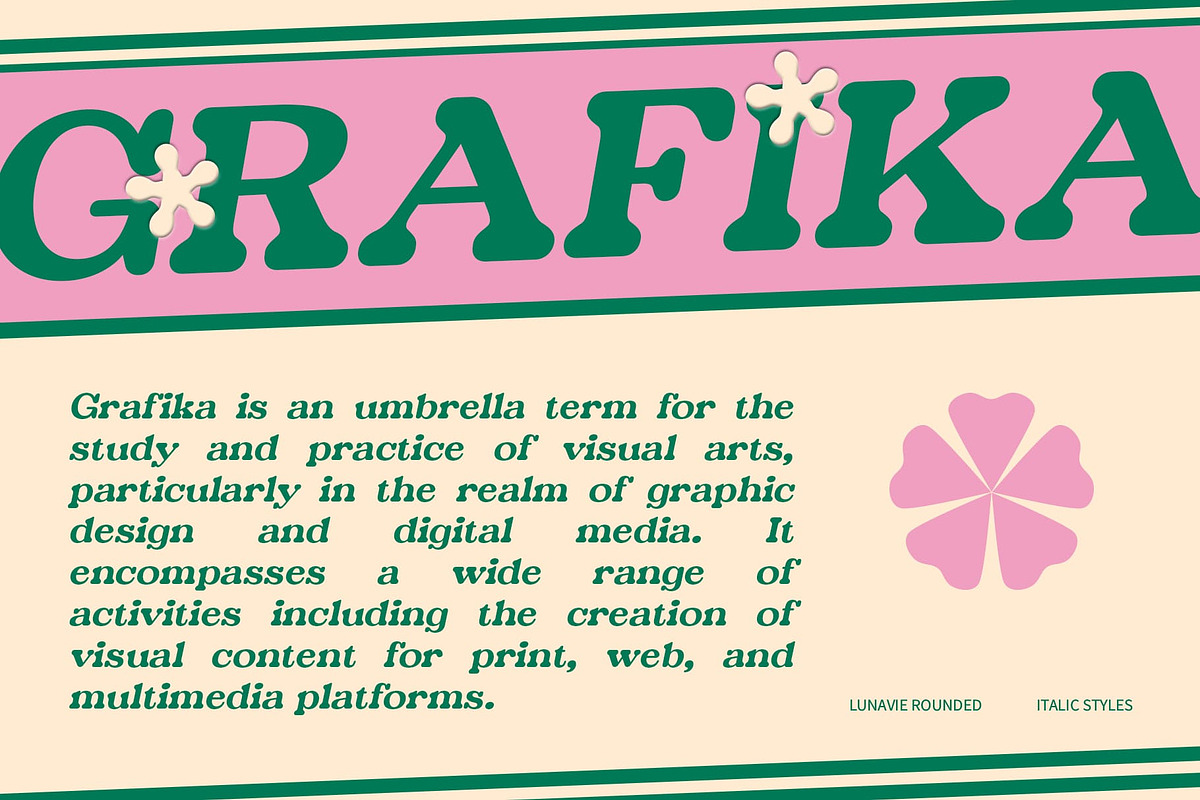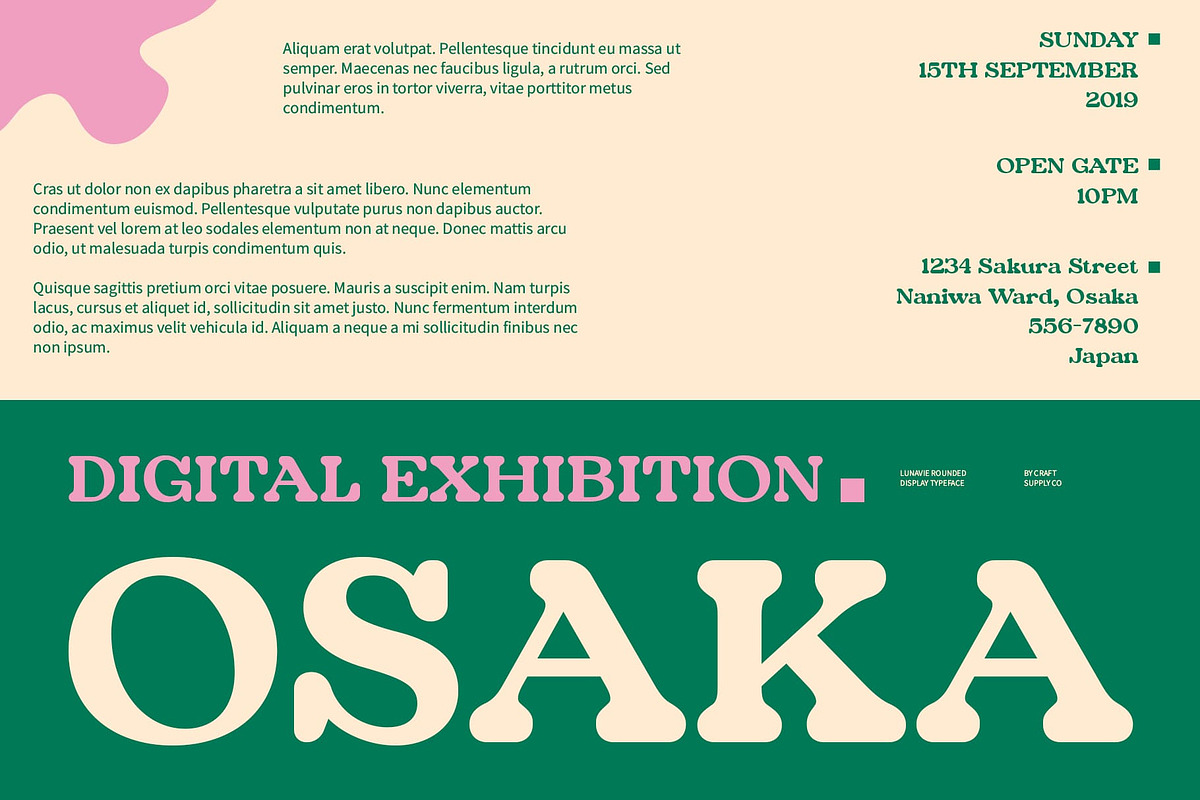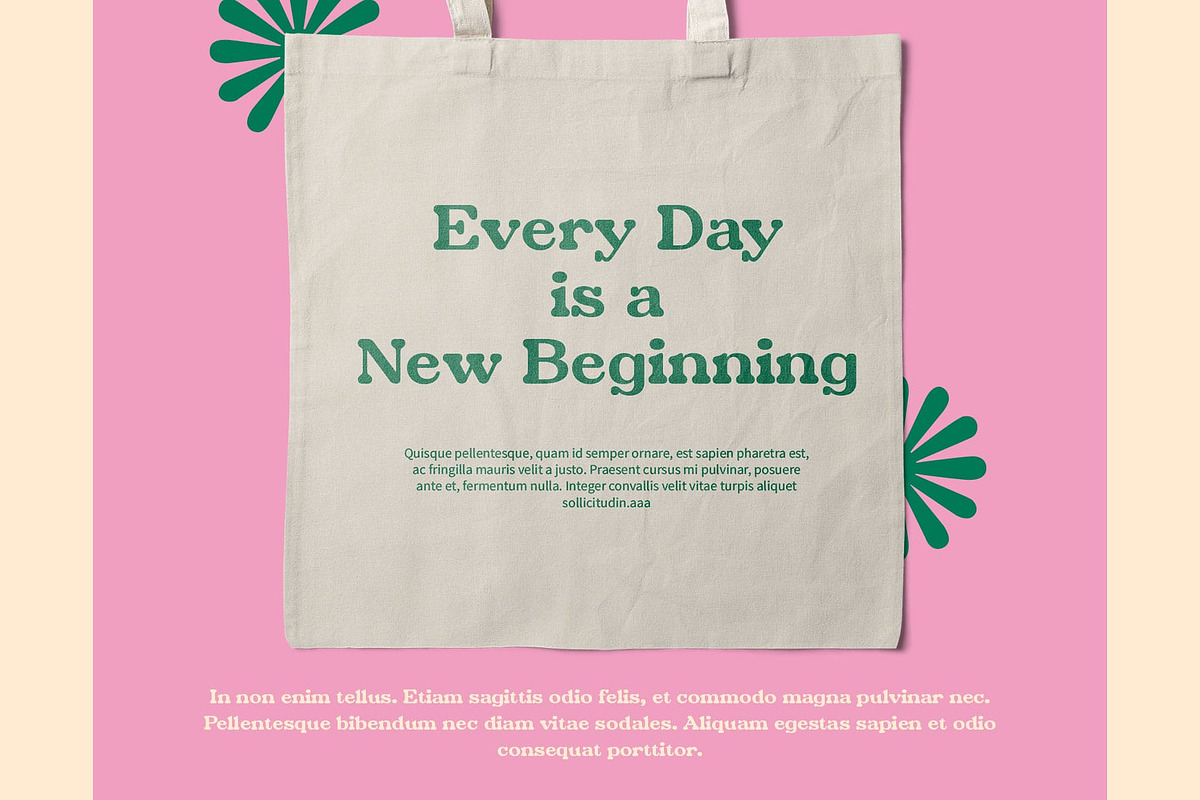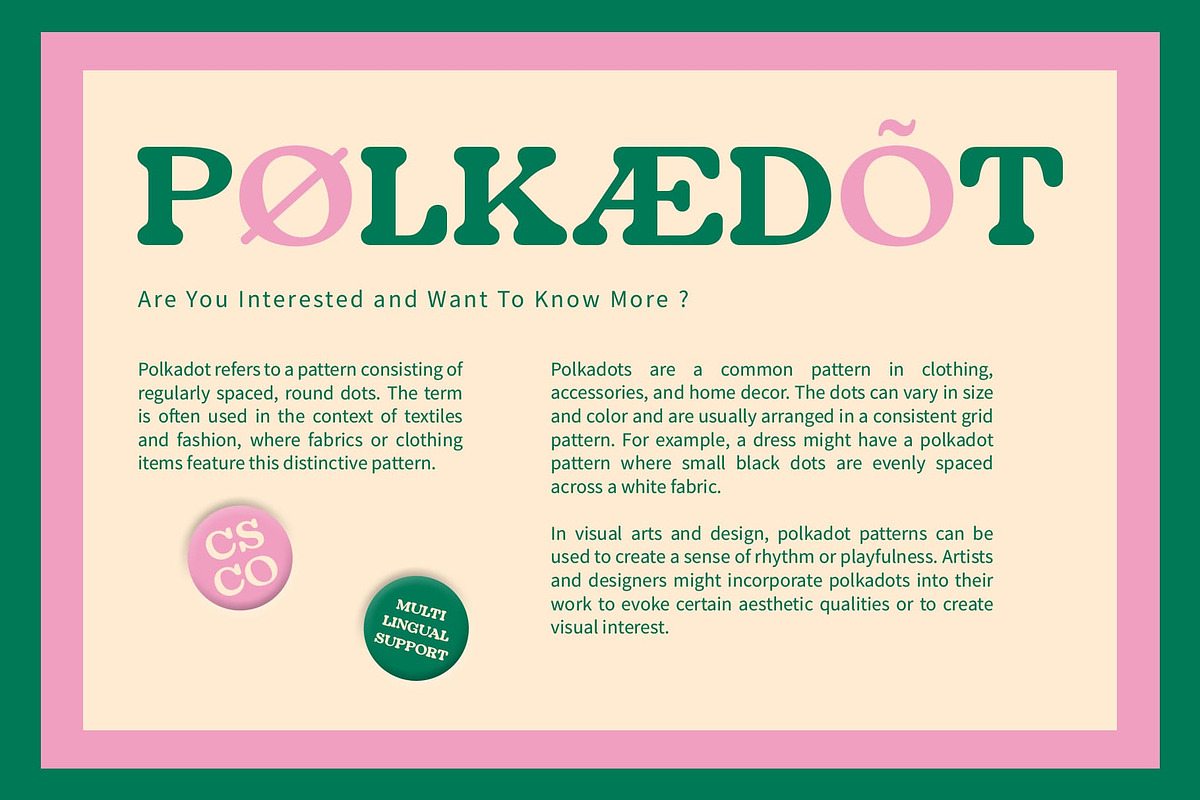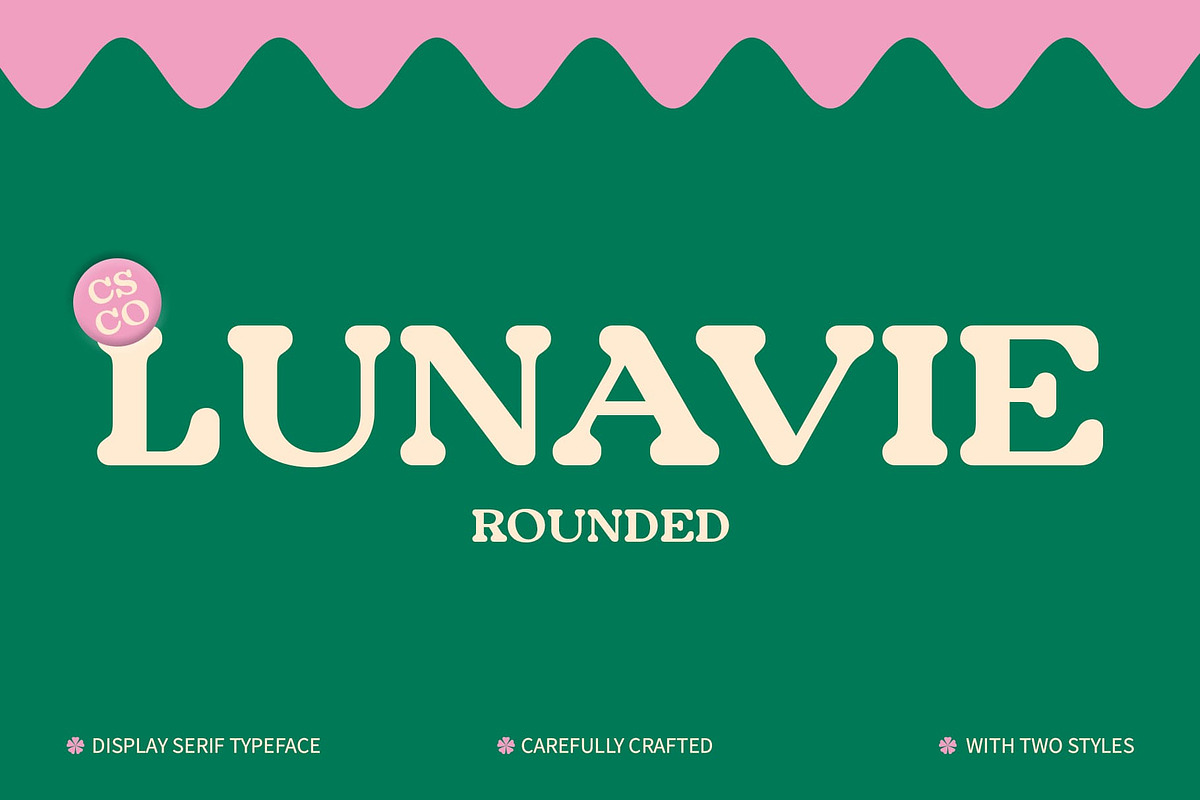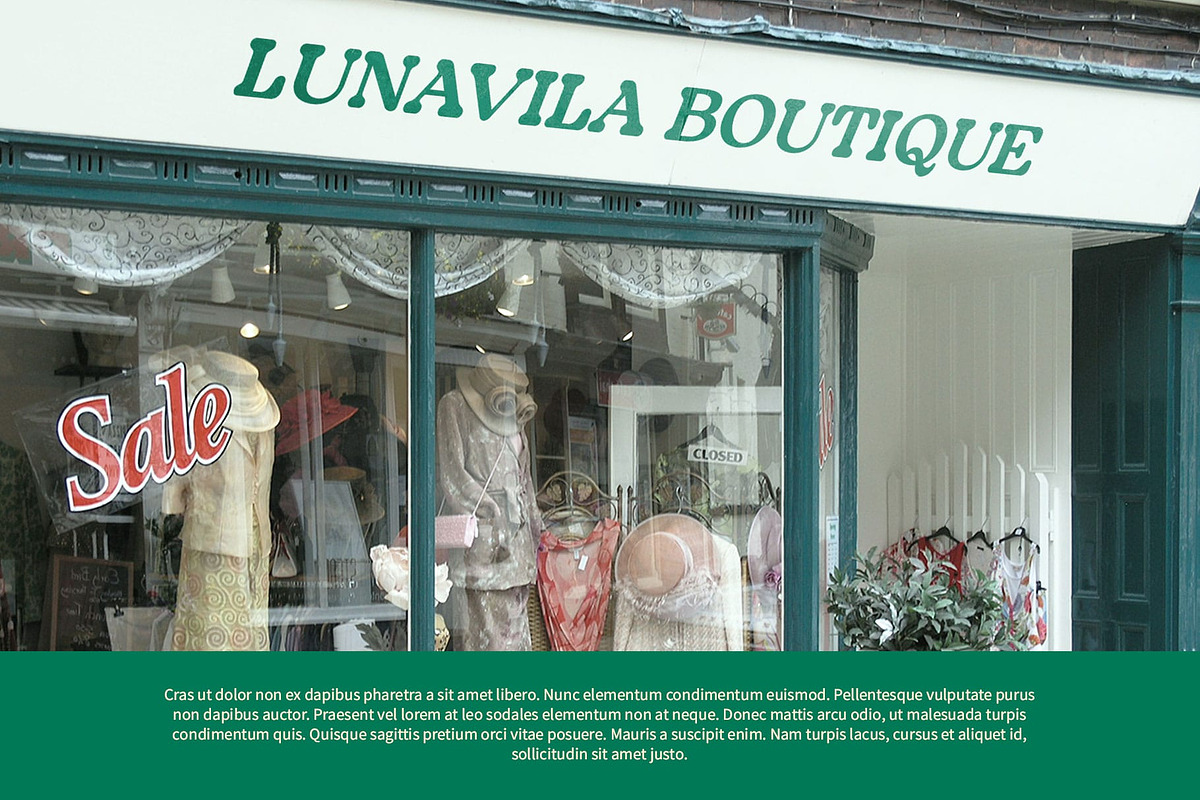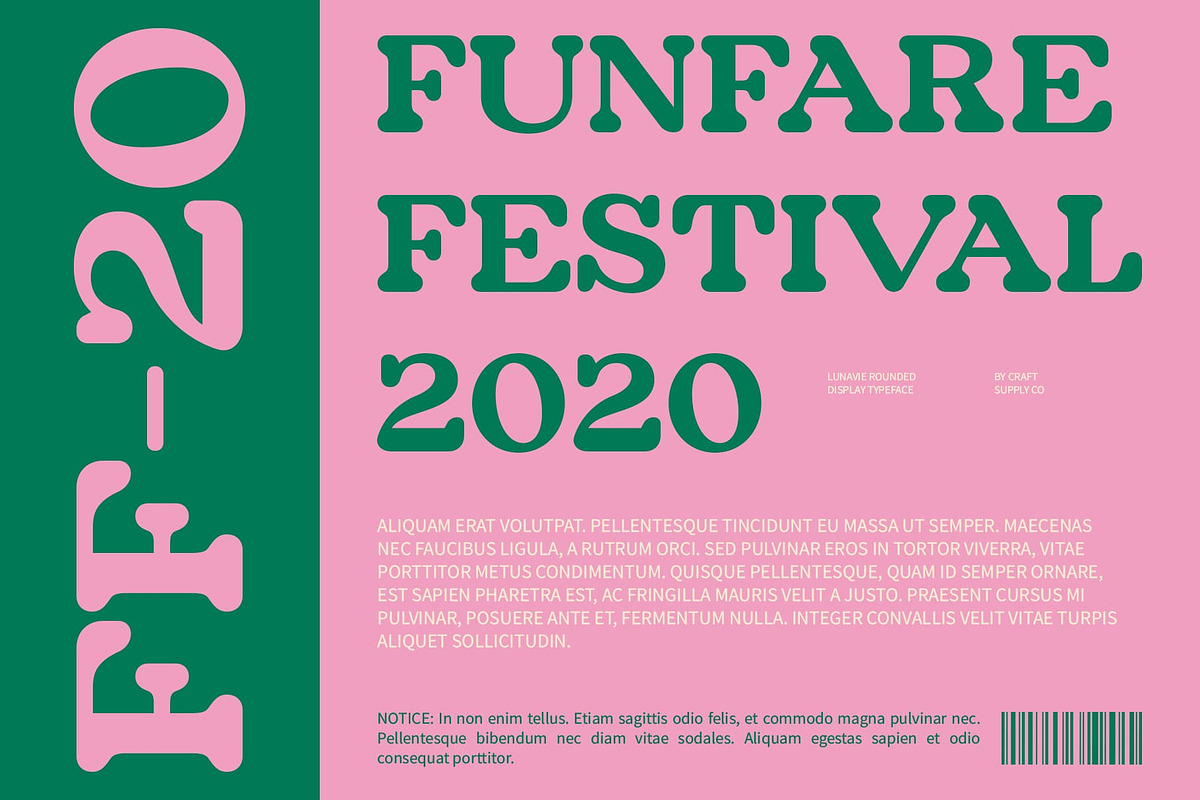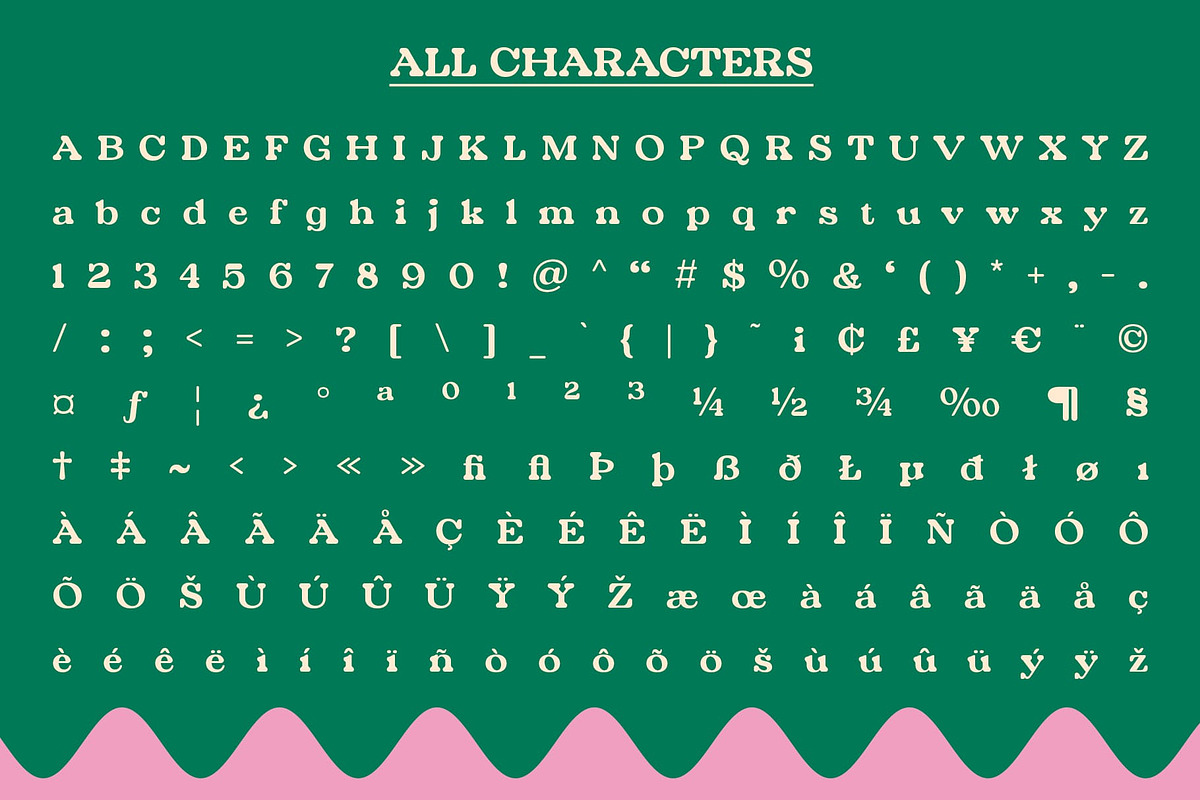
Lunavie Rounded
Lunavie Rounded Font: Bold Retro Funk with Playful Energy
Bold Serif with Rounded Shapes Lunavie Rounded is a bold serif font that stands out through its thick letterforms and rounded edges, delivering a striking yet approachable look. The rounded shapes soften the bold design, giving the font a friendly and playful vibe. Its boldness ensures a strong visual impact, making it perfect for eye-catching titles, logos, and branding where a warm and welcoming aesthetic is desired.
Retro Funky Vibe for Nostalgic Appeal Infused with a retro funky style, Lunavie Rounded channels the vibrant and eclectic design trends of the past, particularly reminiscent of the 70s and 80s. This retro vibe adds a layer of colorful charm, with its playful curves and bold presence evoking nostalgia. The funky character of this font makes it an excellent choice for projects that aim to capture a lively, youthful energy with a classic twist.
Versatile for Fun, Creative, and Lively Designs Lunavie Rounded is ideal for a wide range of creative applications. Whether you’re designing event posters, lively branding, or promotional materials that need to stand out, this font brings a unique mix of fun, nostalgia, and character. Its balance of boldness, retro charm, and friendly rounded shapes makes it versatile for both vintage-inspired and contemporary design projects, giving any creation a standout, joyful personality that grabs attention.